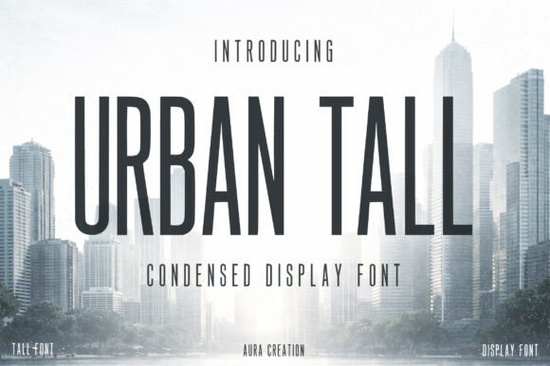
If you’ve been searching for a display font that’s bold, narrow, and built for modern design work, Urban Tall is worth a closer look. This condensed typeface stands out with its tall proportions and clean lines ideal for projects where space is limited but visual impact matters. Whether you’re designing a T-shirt, crafting social media banners, or building a brand identity, Urban Tall delivers clarity without sacrificing style.
What makes Urban Tall different from other display fonts?
Unlike wider display fonts that can dominate a layout, Urban Tall’s narrow structure lets you fit more text while keeping your design sleek. Its letterforms are bold enough to grab attention but refined enough to stay readable even at smaller sizes or on busy backgrounds. The font draws inspiration from urban architecture and contemporary minimalism, making it a natural fit for streetwear brands, café logos, event posters, or even packaging labels.
It’s also versatile across mediums. You’ll get consistent results whether you’re printing on fabric, vinyl, or paper, or creating digital assets for Instagram, websites, or email headers.
When should you use a condensed display font like this?
Condensed fonts shine when horizontal space is tight but you still need strong typography. Think of scenarios like:
- T-shirt slogans that wrap around the chest without crowding
- Social media story overlays where every pixel counts
- Product labels with limited real estate
- Event flyers needing punchy headlines above dense info blocks
In these cases, Urban Tall gives you presence without sprawl. And because it avoids overly decorative details, it pairs well with photos, textures, or minimalist layouts.
How does it compare to similar fonts on Creative Fabrica?
Who is this font best suited for?
Urban Tall works especially well for:
- Print-on-demand sellers creating mugs, hoodies, or phone cases with short, impactful phrases
- Small business owners building a logo or signage that needs to read clearly from a distance
- Graphic designers working on editorial layouts, ad campaigns, or brand guidelines
- Crafters using cutting machines (like Cricut or Silhouette) who need fonts that cut cleanly and look sharp
Because it’s a single-style font (not part of a large family with multiple weights), it’s best used as a headline or accent not for body text. But that’s exactly what display fonts are meant for: making a statement quickly and memorably.
Tips for using Urban Tall effectively
To get the most out of this font:
- Avoid tight tracking: Since it’s already condensed, don’t squeeze letters further it can hurt readability.
- Pair it with a simple sans-serif: Use a neutral font like Helvetica, Arial, or Montserrat for supporting text to keep focus on the headline.
- Test print and screen versions: What looks crisp on your monitor might blur slightly on certain fabrics or low-res prints always do a small test run first.
- Use uppercase sparingly: While all-caps can look powerful, mixing upper and lowercase often improves legibility, especially in longer headlines.